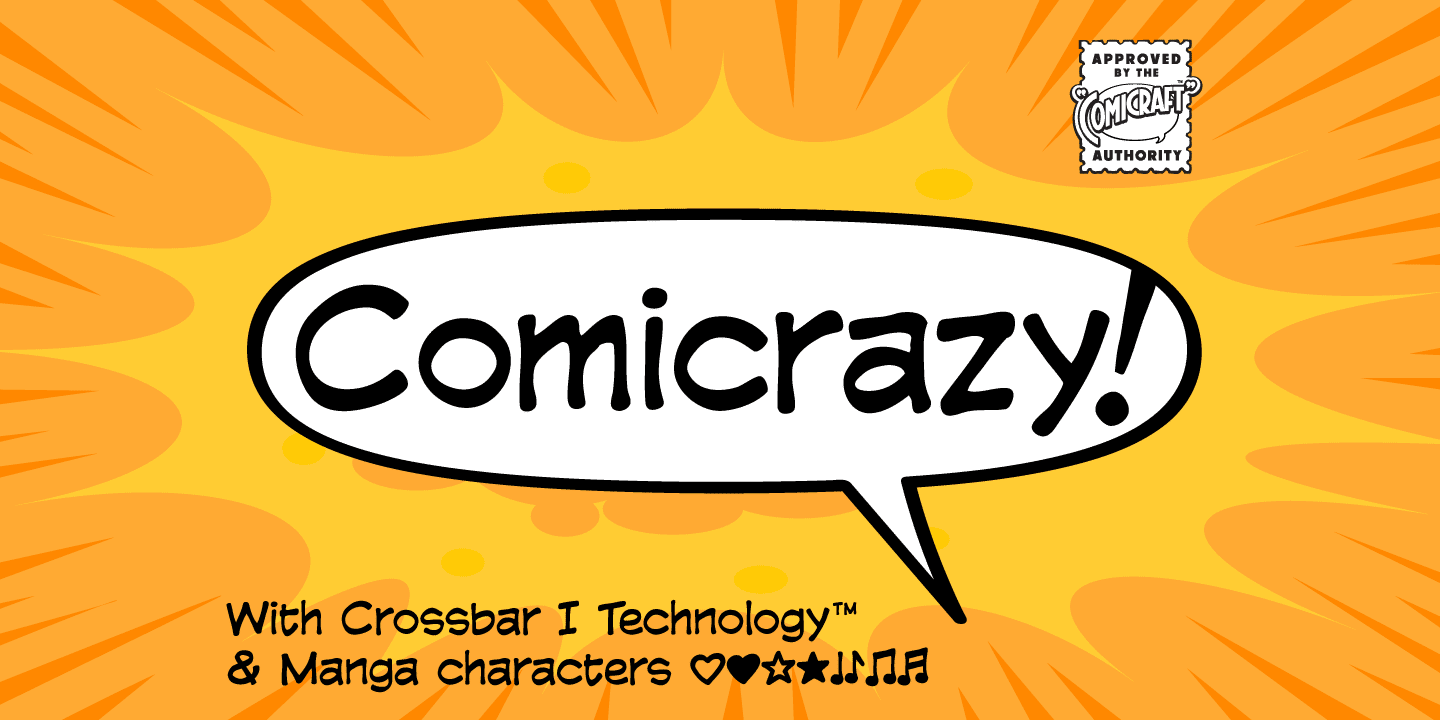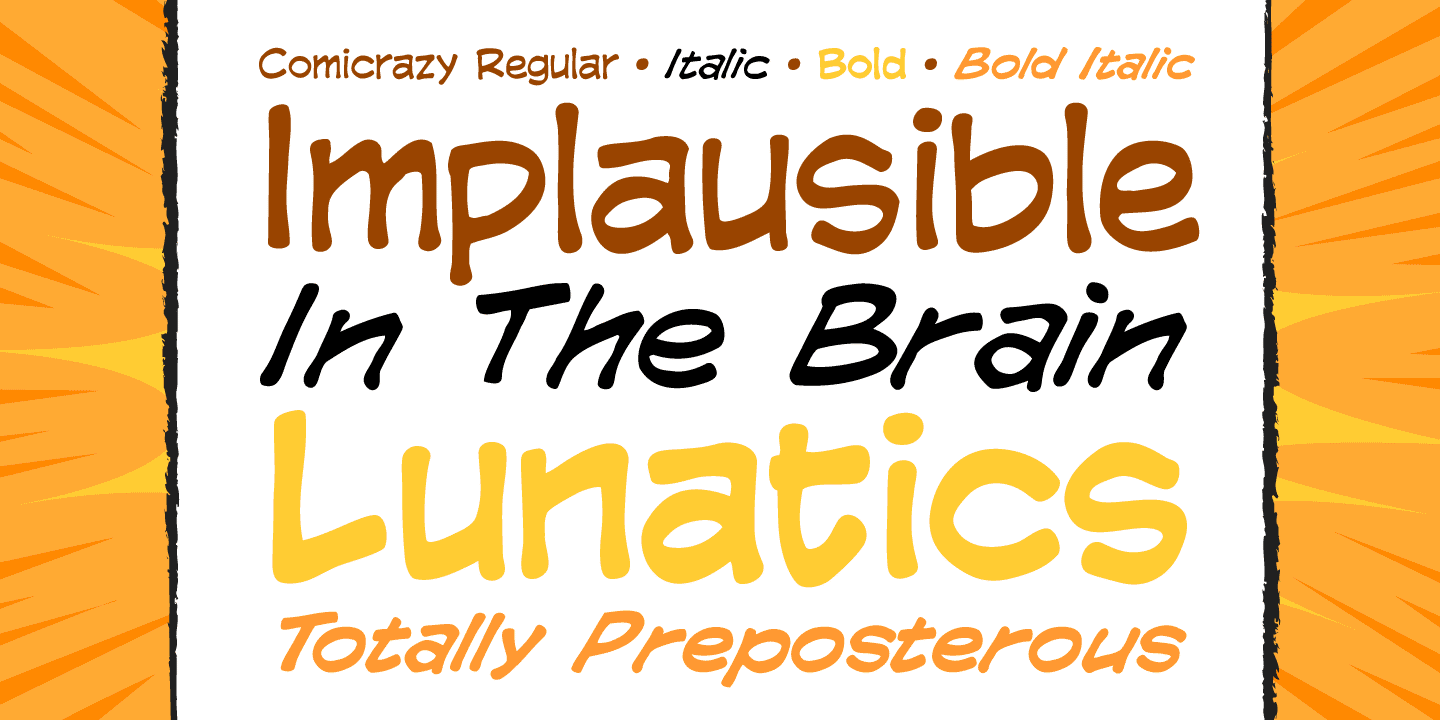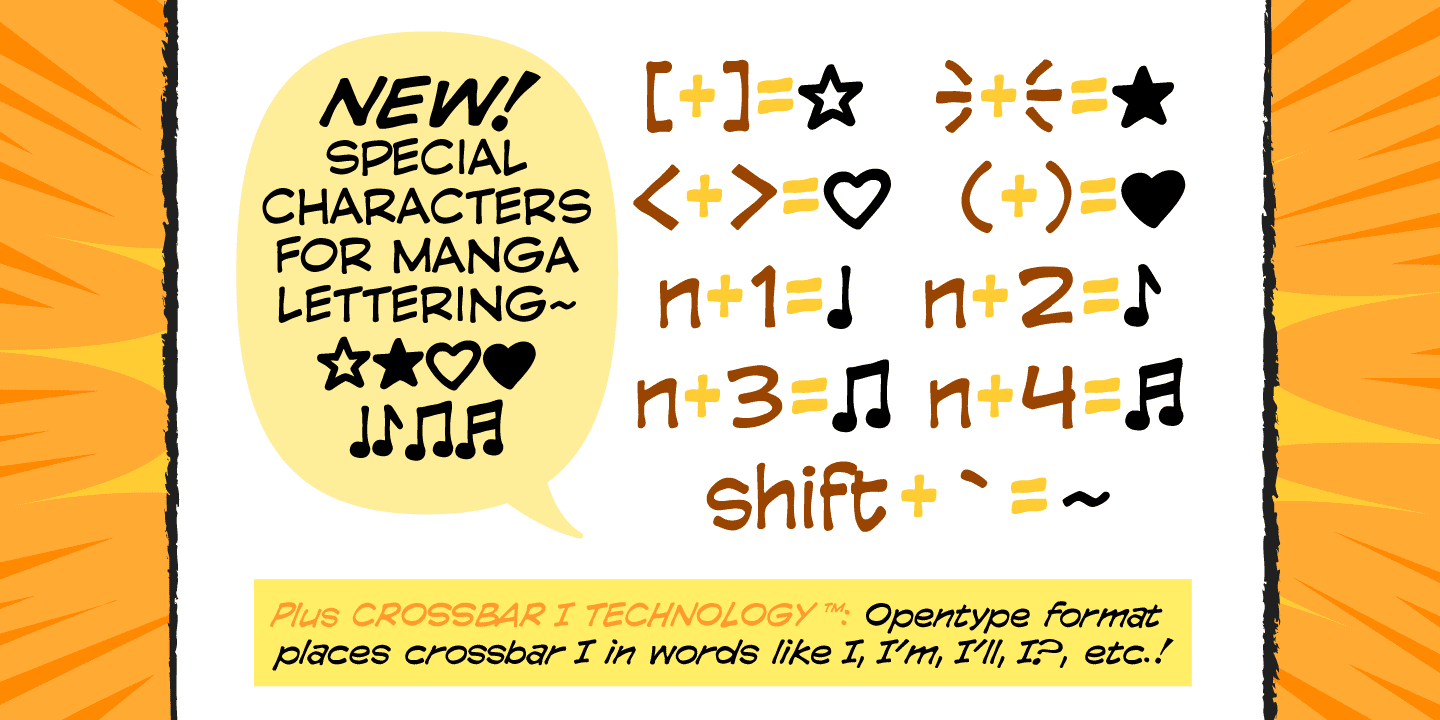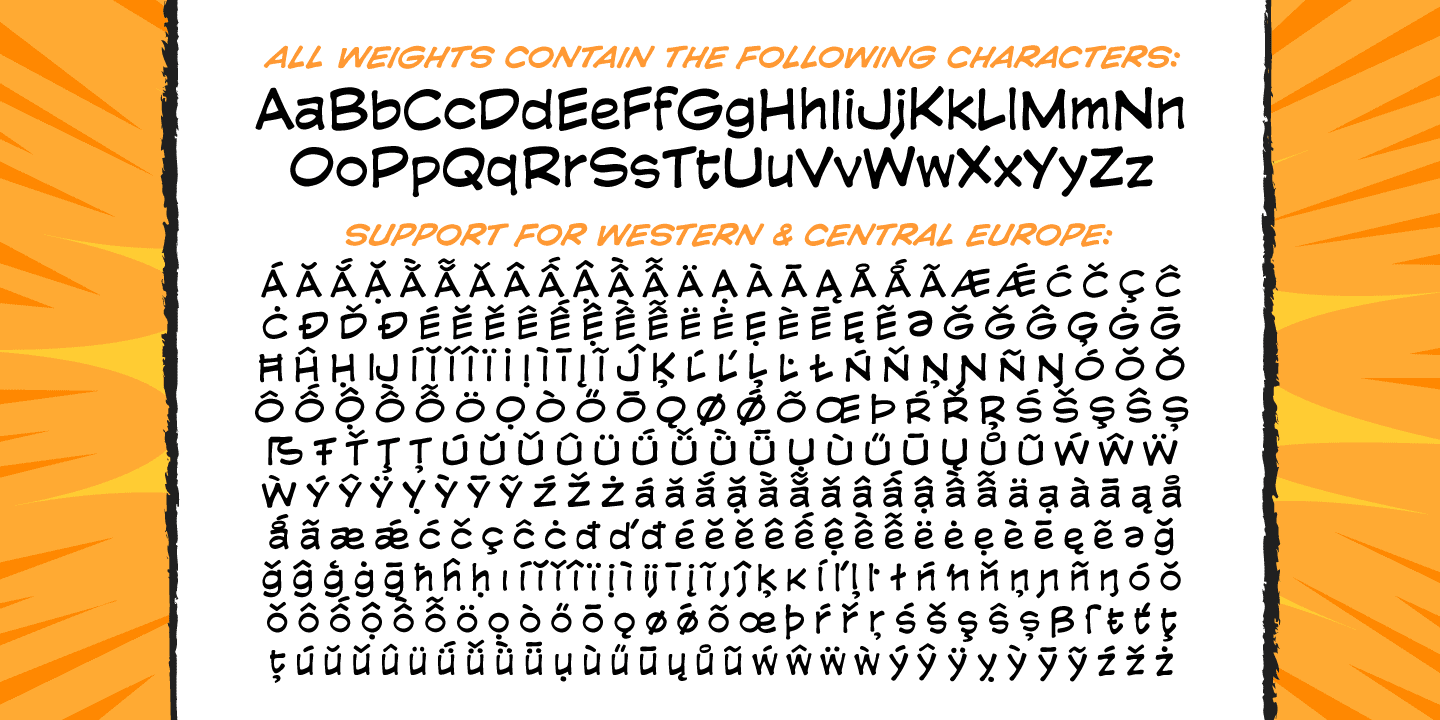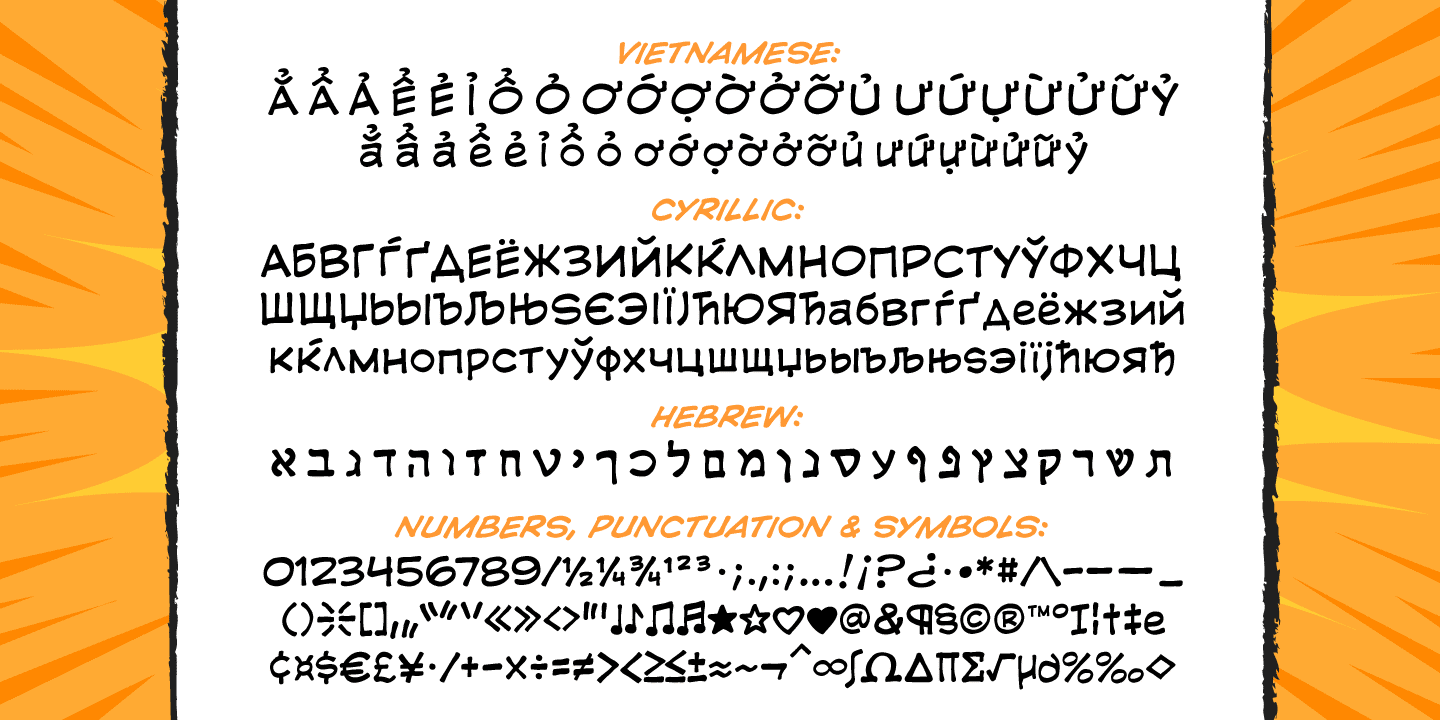
Originally created for exclusive use in Image’s wildly successful GEN-13 title, Comicrazy was eventually made commercially available in response to inquiries from comic book creators all around the world!